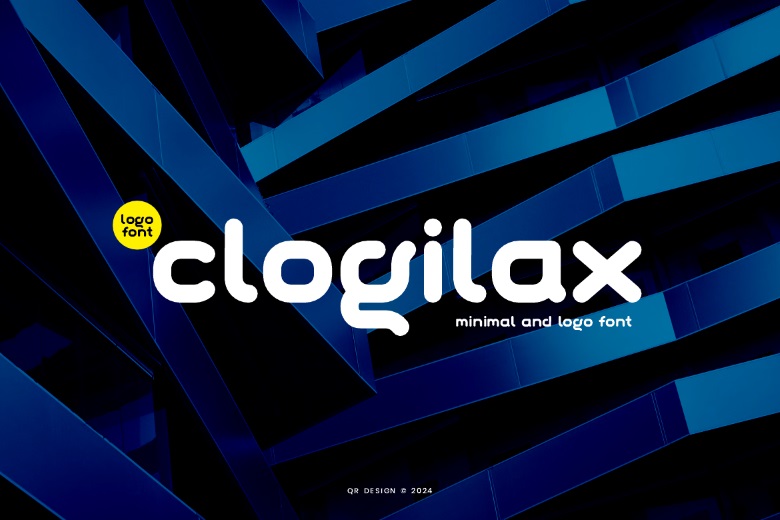
Clogilax Font
Clogilax is a sans serif typeface that is provocative and has geometric in nature but it is also confidence inspiring. Regardless of the topic, this font will be a valuable addition to your fonts’ collection since it can enhance any design.
Clogilax Sans Serif Font